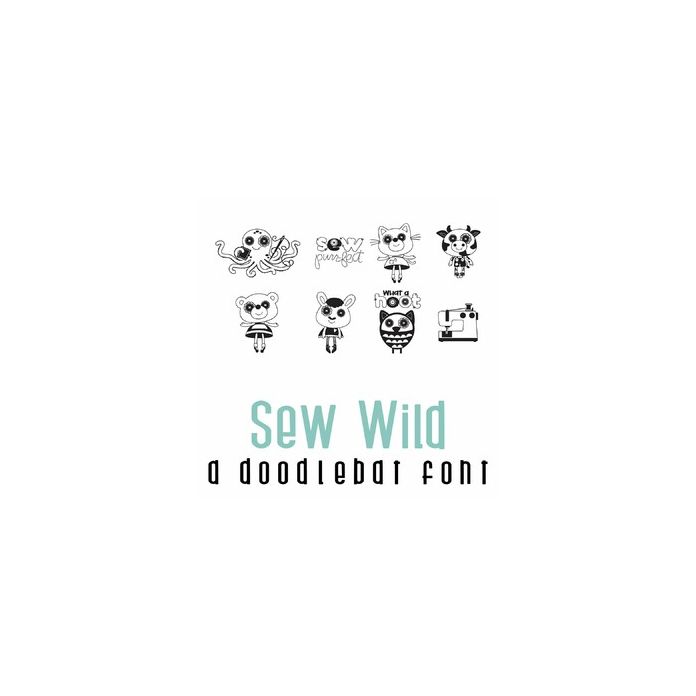
This fun full-color doodlebat font features 26 adorable sew style animals, perfect for cards, crafts, gifts, scrapbook pages, planner stickers, and more!